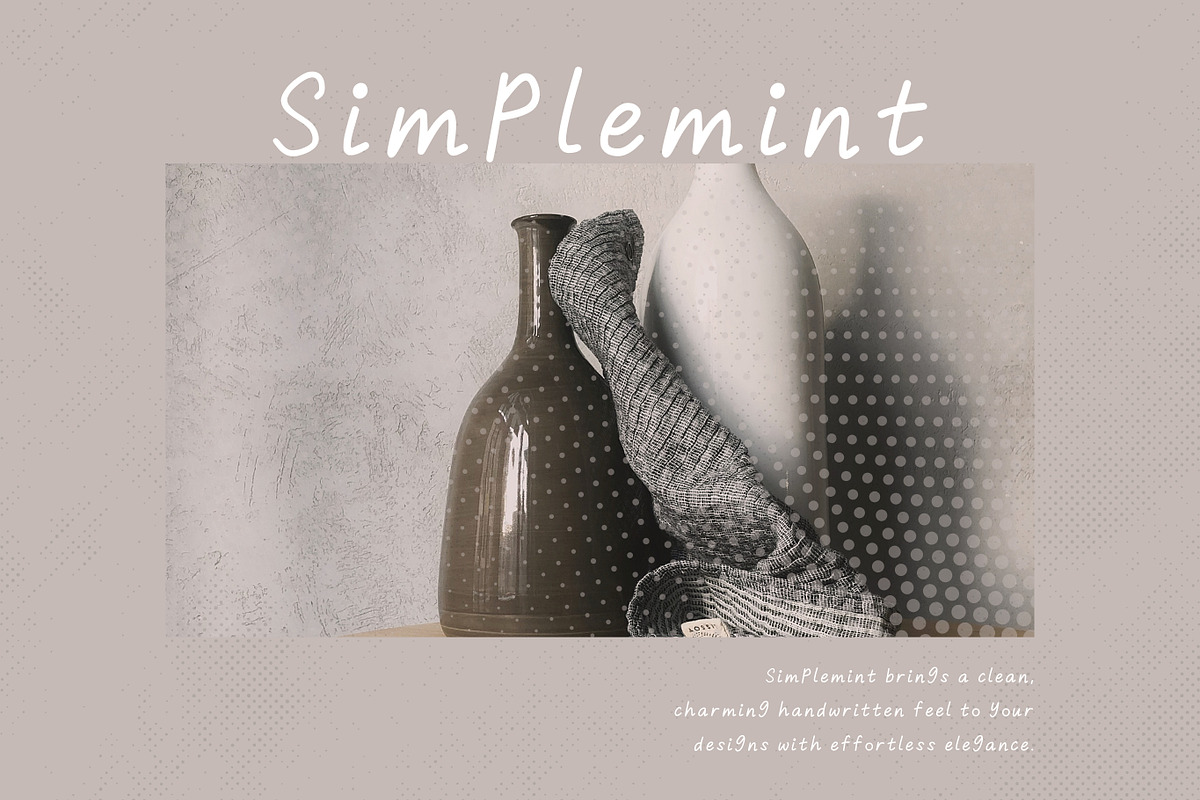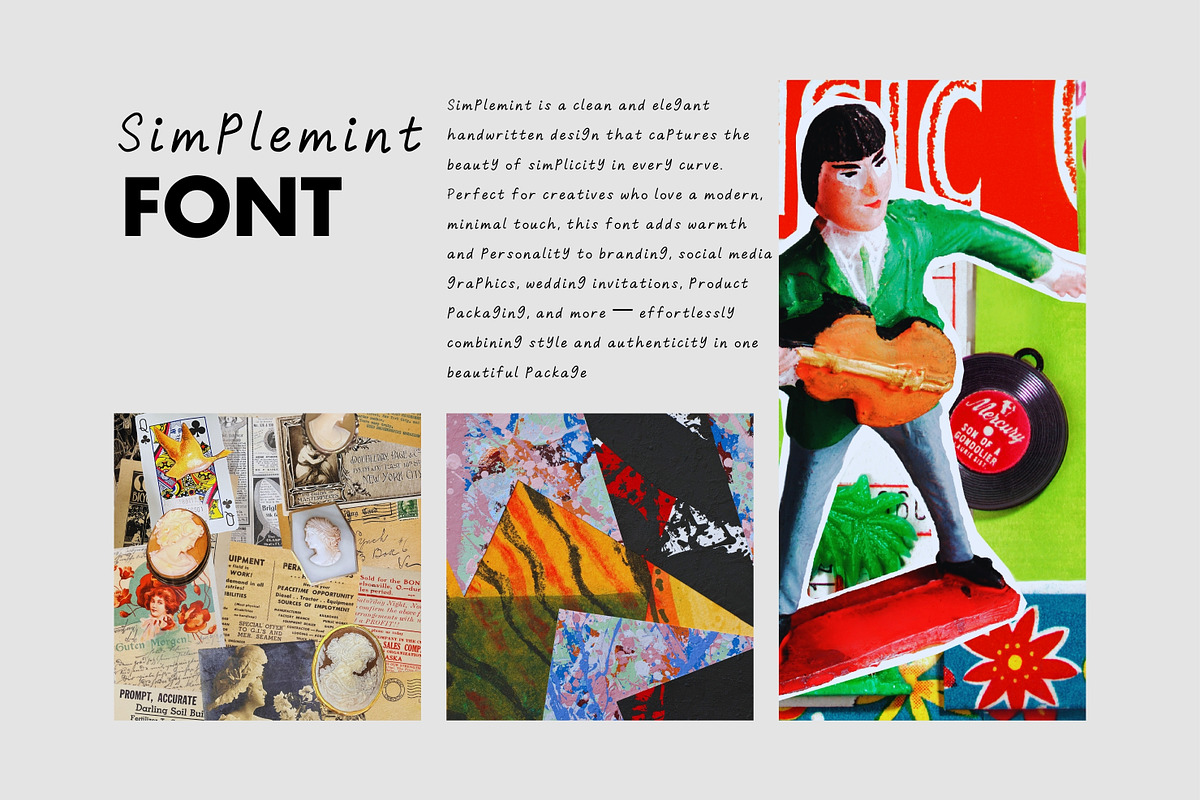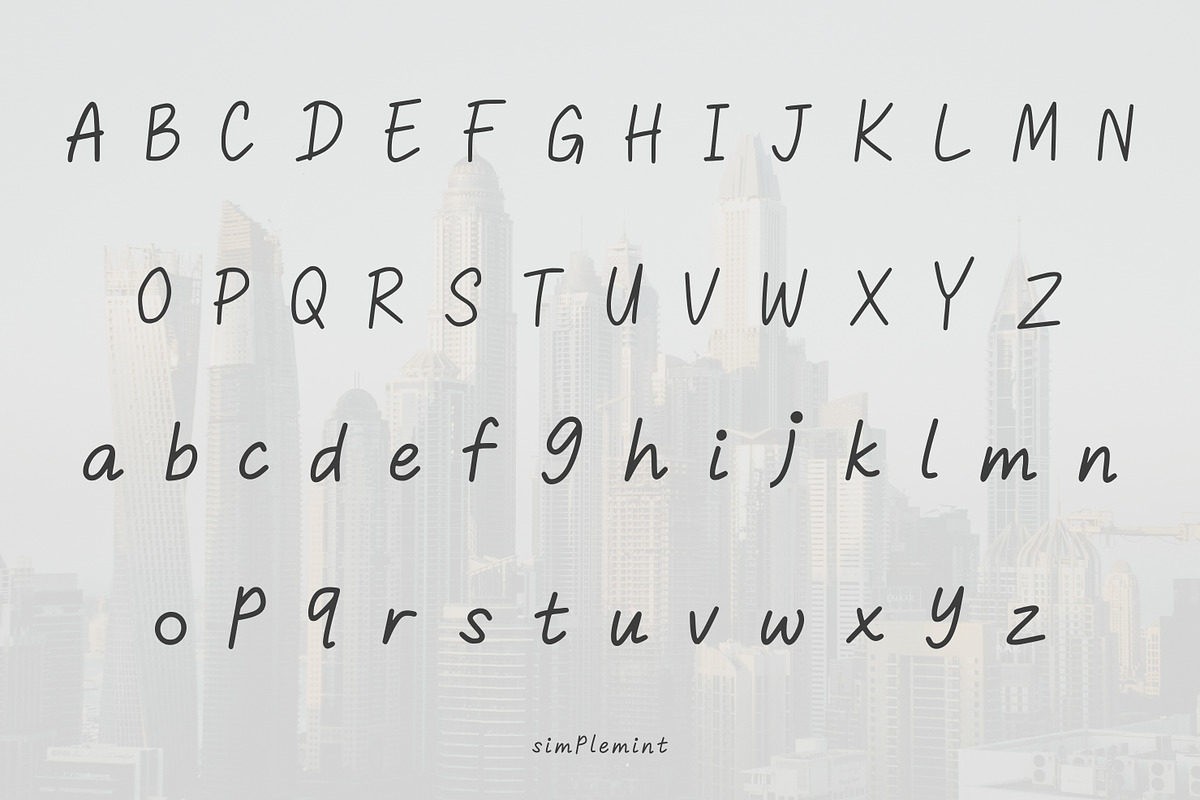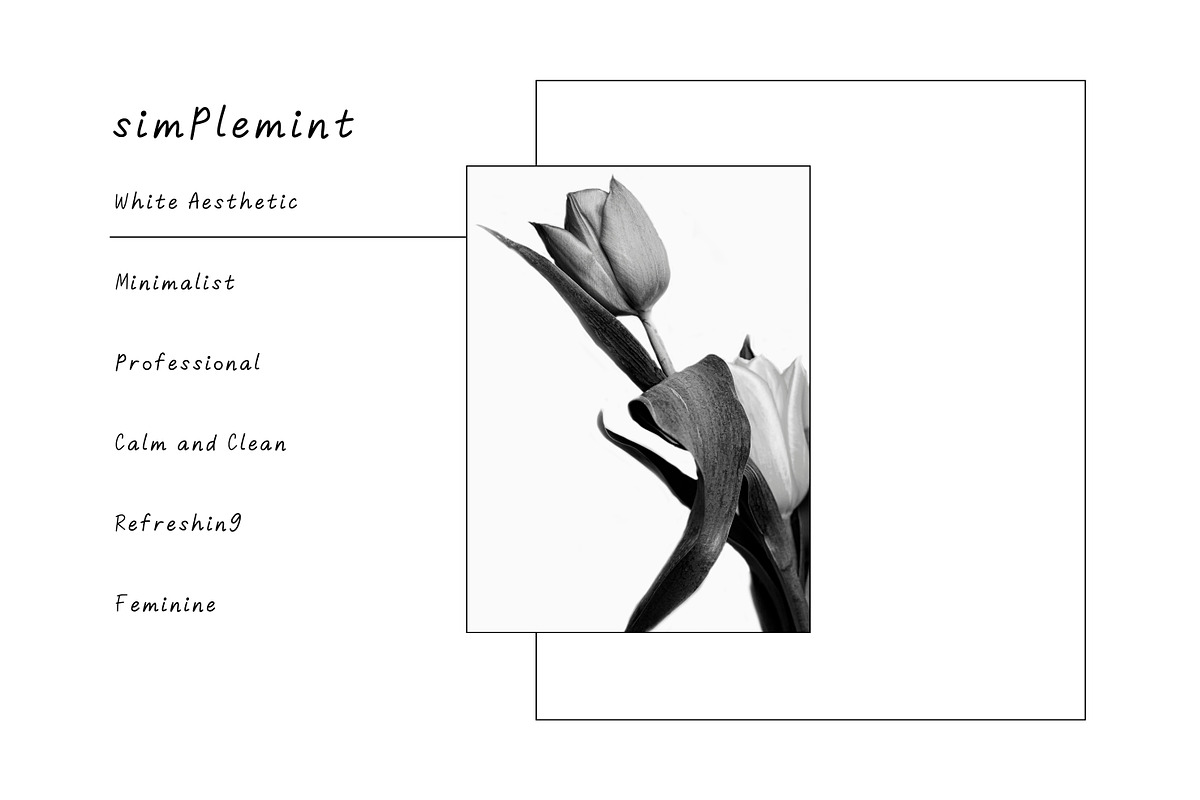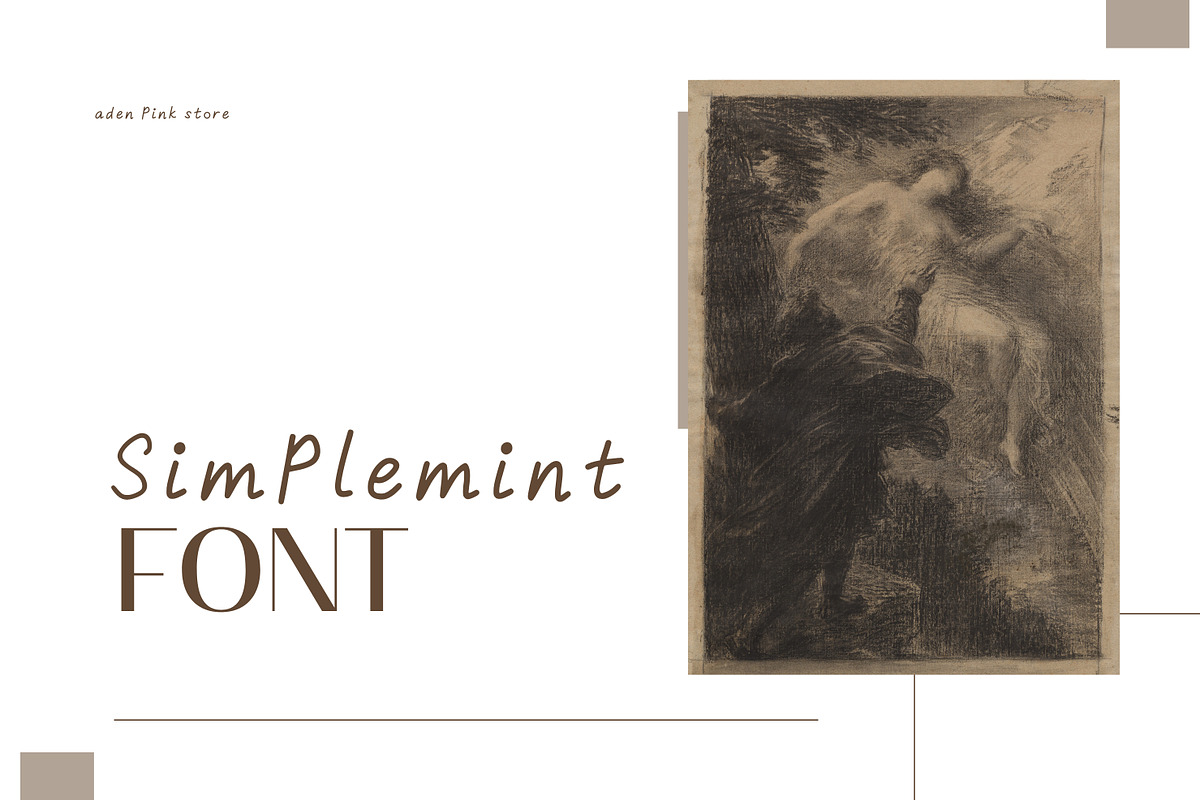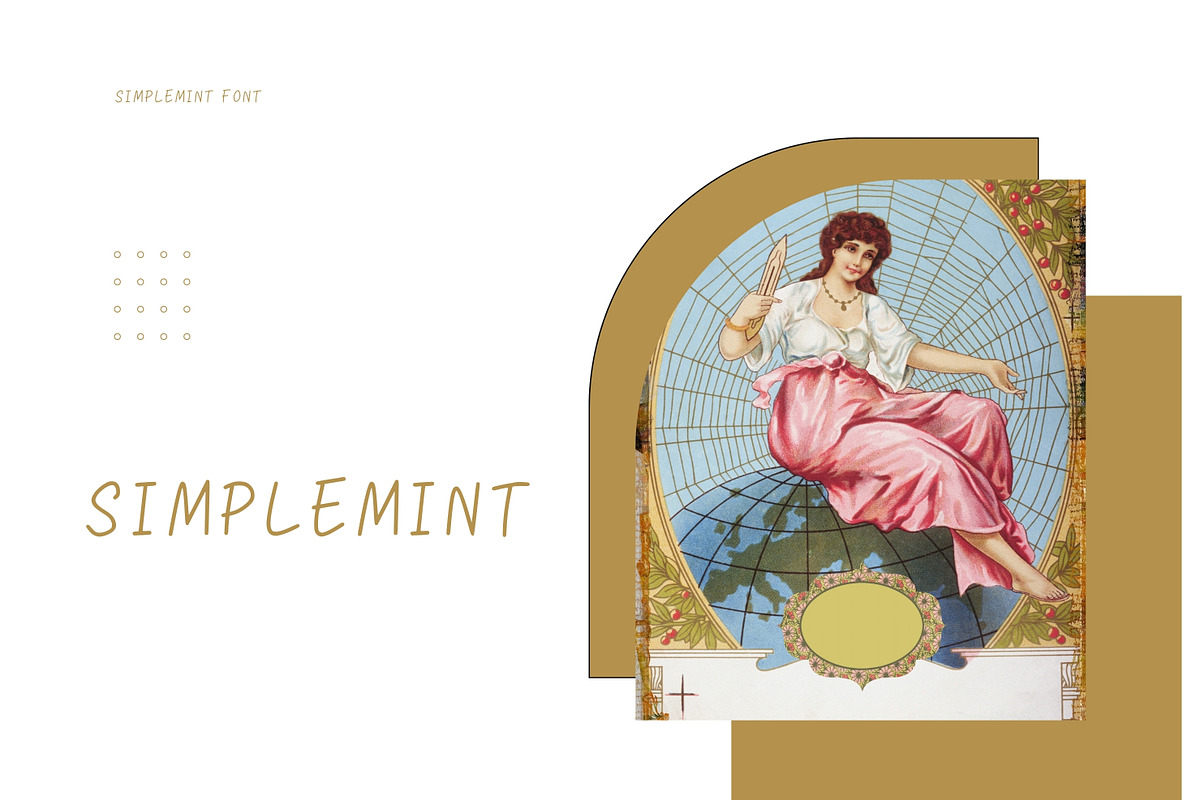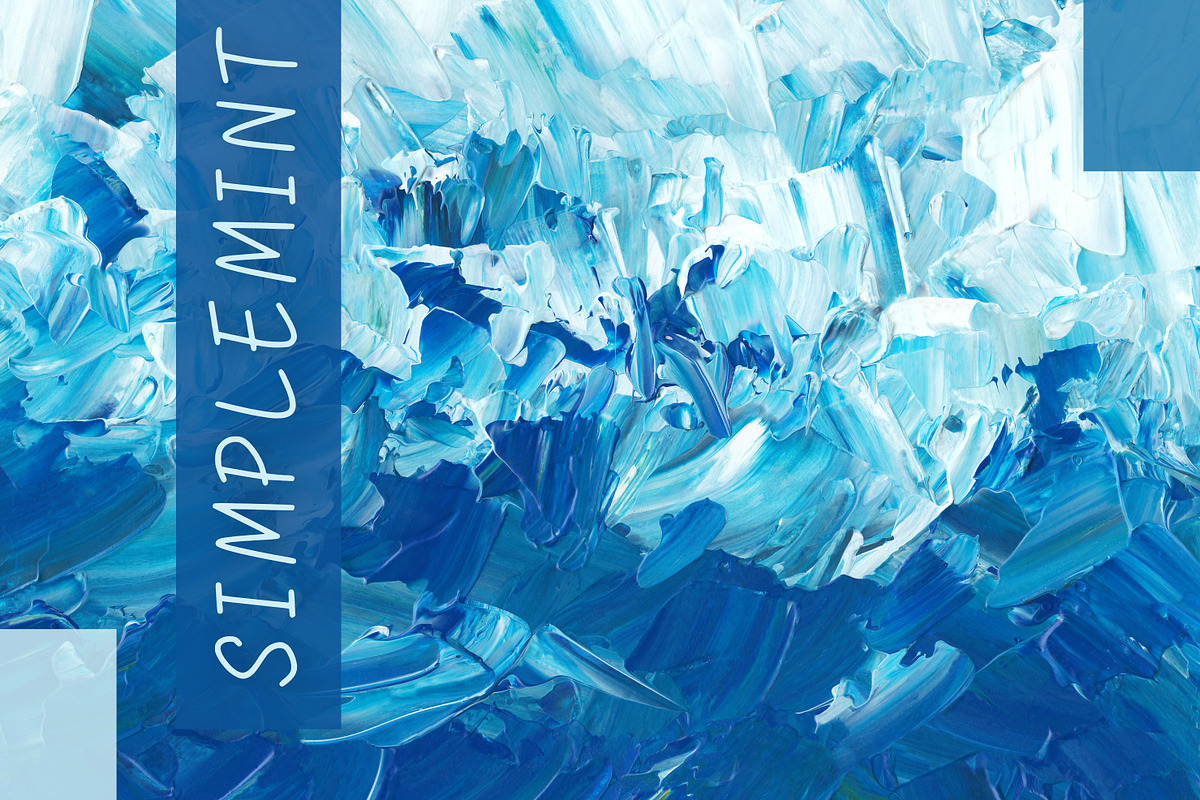
Simplemint – A Fresh Handcrafted
Introducing Simplemint, a fresh and charming design that brings a personal, handmade feel to your creative projects. With its clean strokes and playful flow, this font adds a warm and inviting touch to anything from branding and social media posts to packaging and greeting cards.
Perfectly suited for designers who love minimal yet expressive styles, Simplemint helps your message stand out with a natural, creative flair. The font comes with both OTF and TTF formats, making it easy to use across a wide range of design software. Whether you’re crafting a logo, wedding invite, or stylish quote graphic, Simplemint is your go-to choice for a personal and stylish finish.